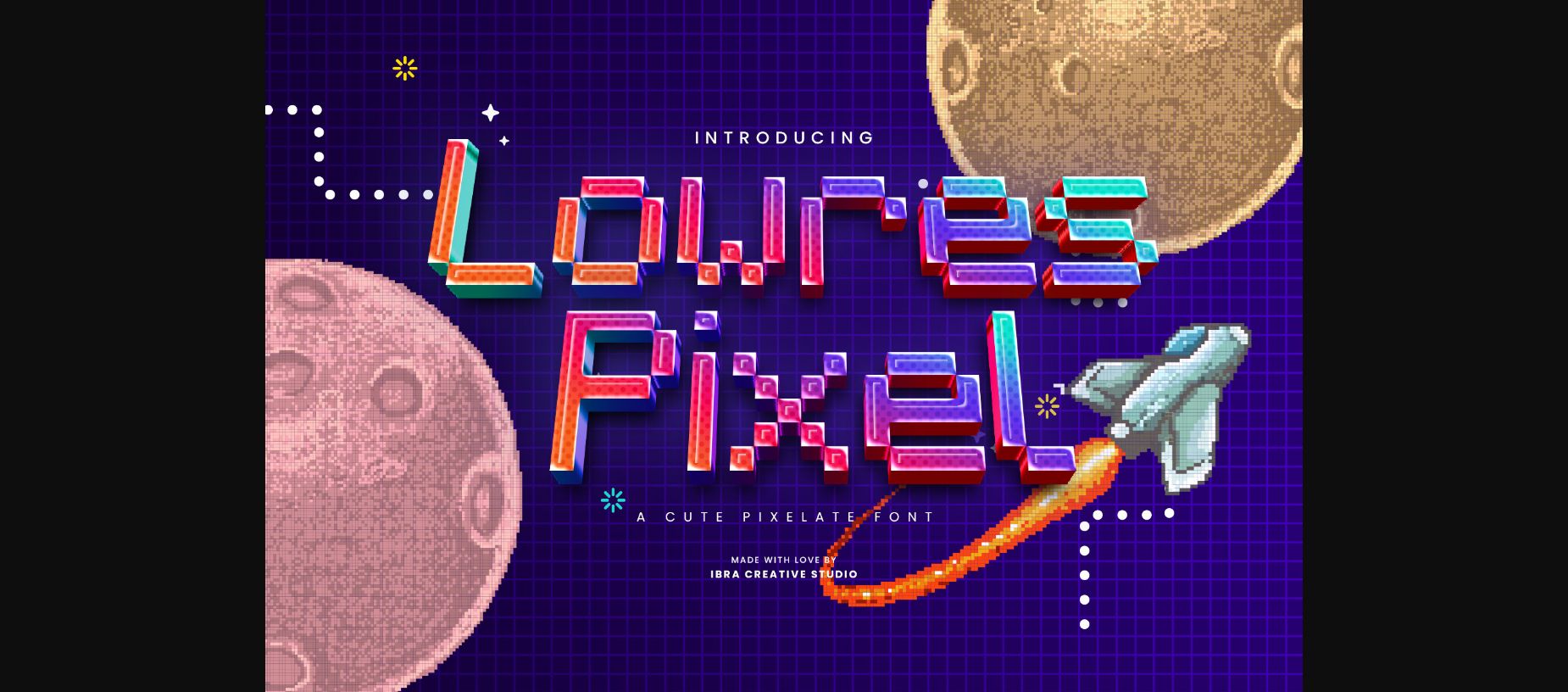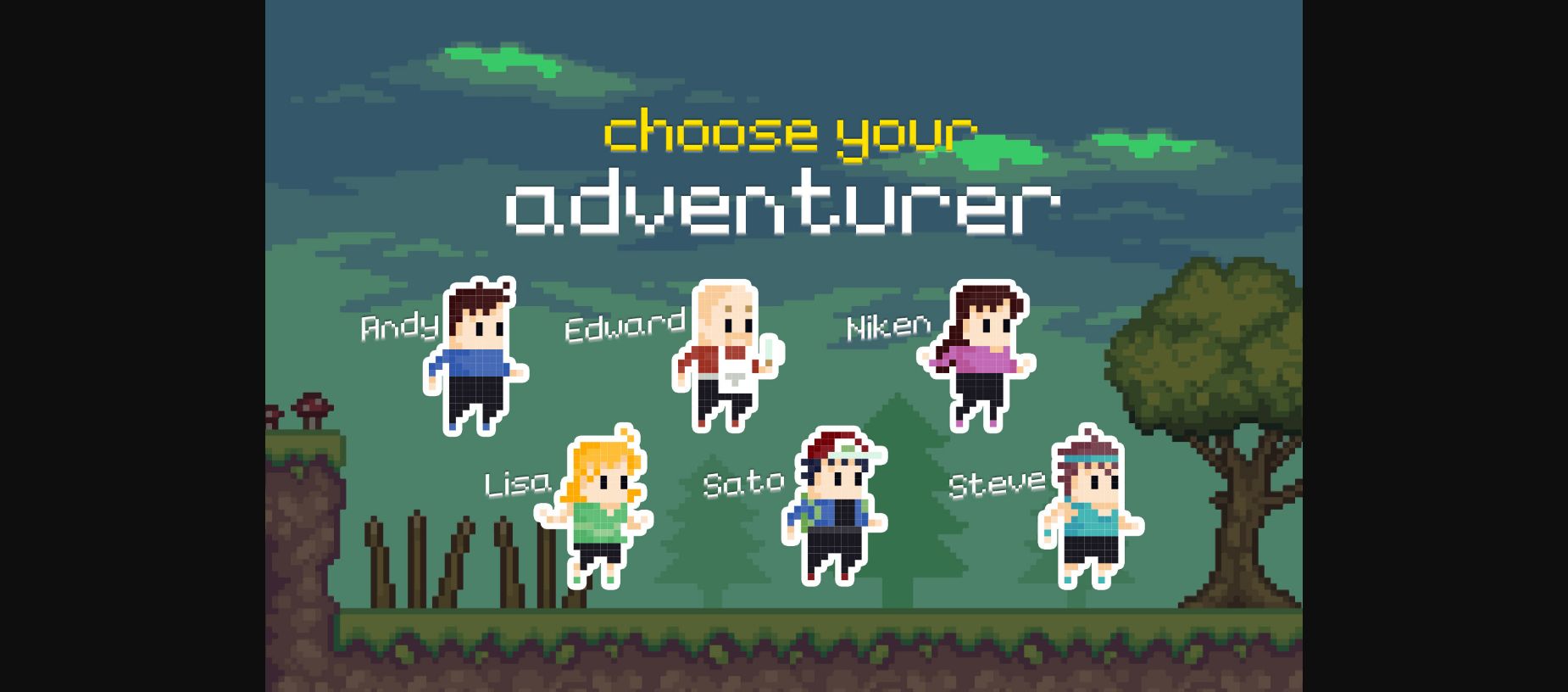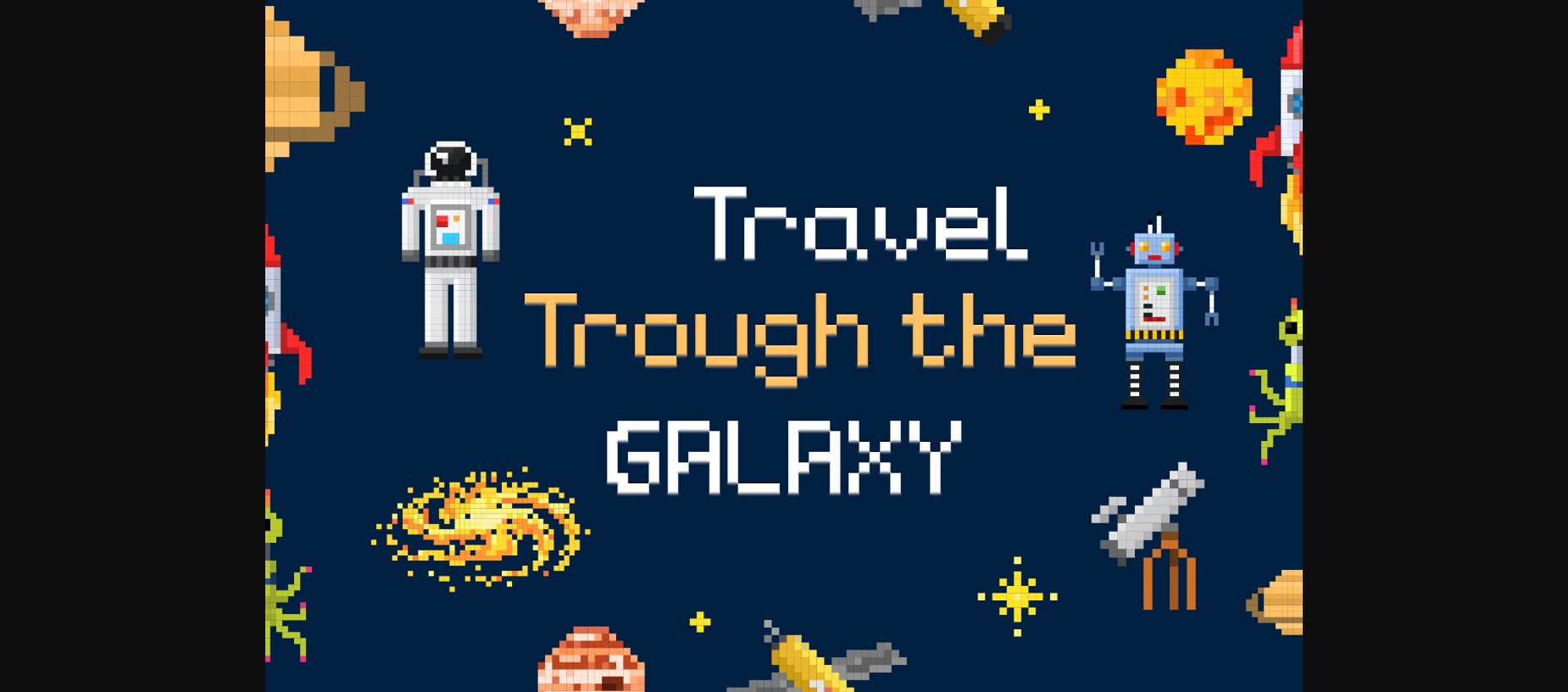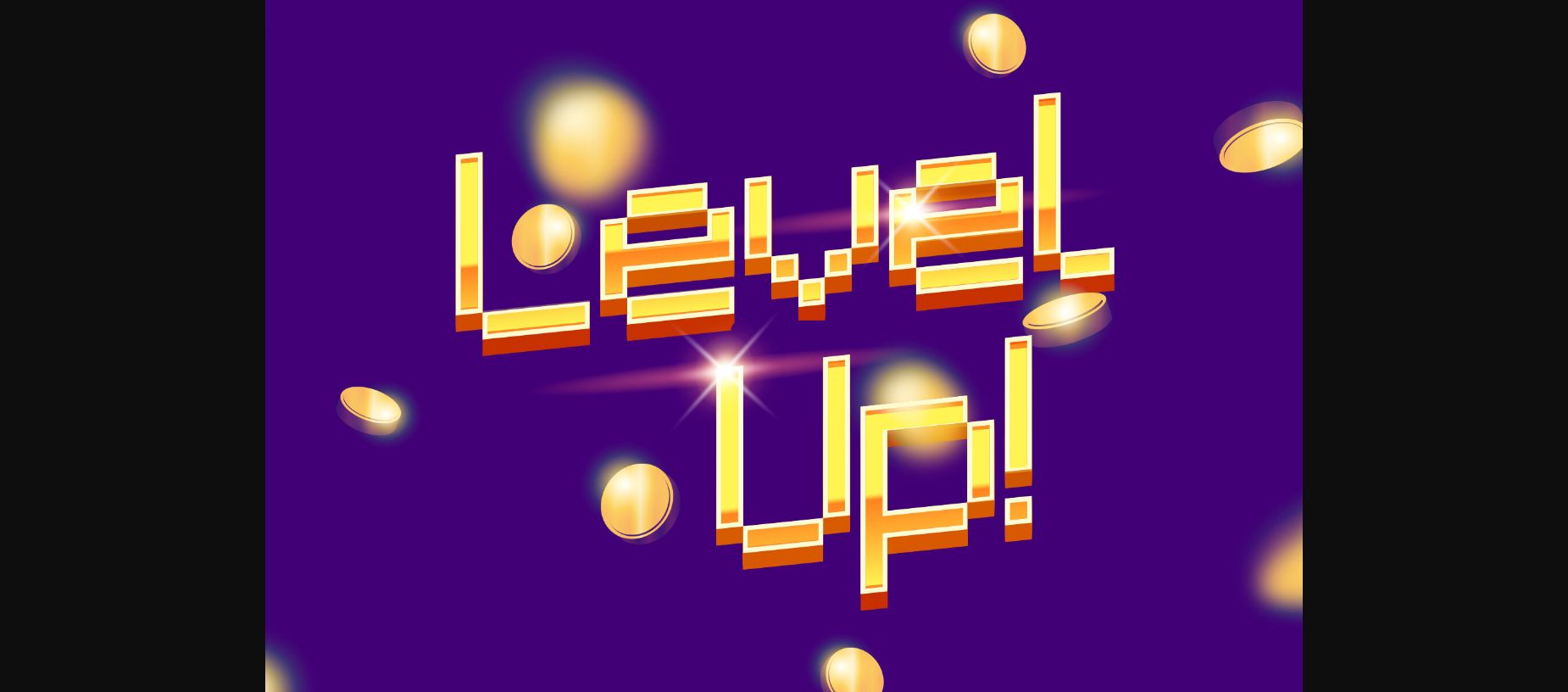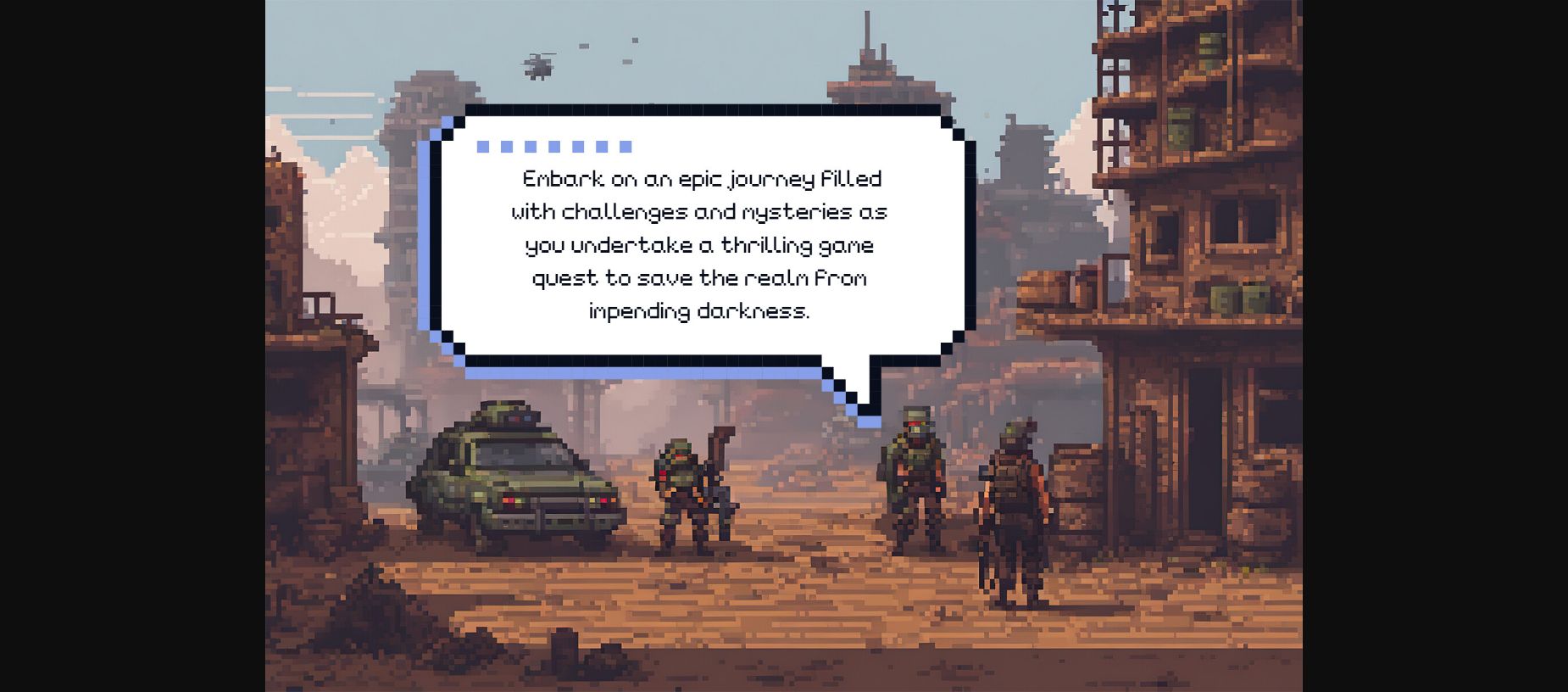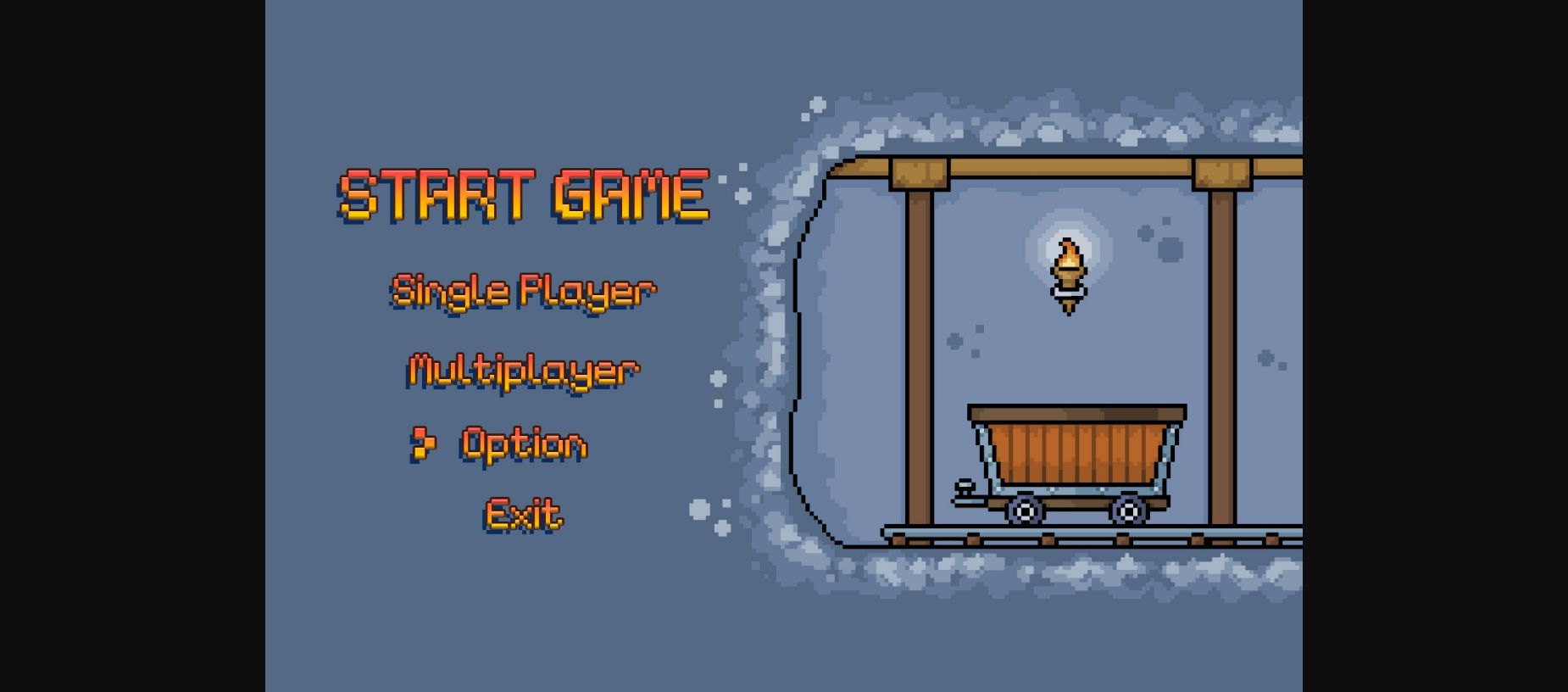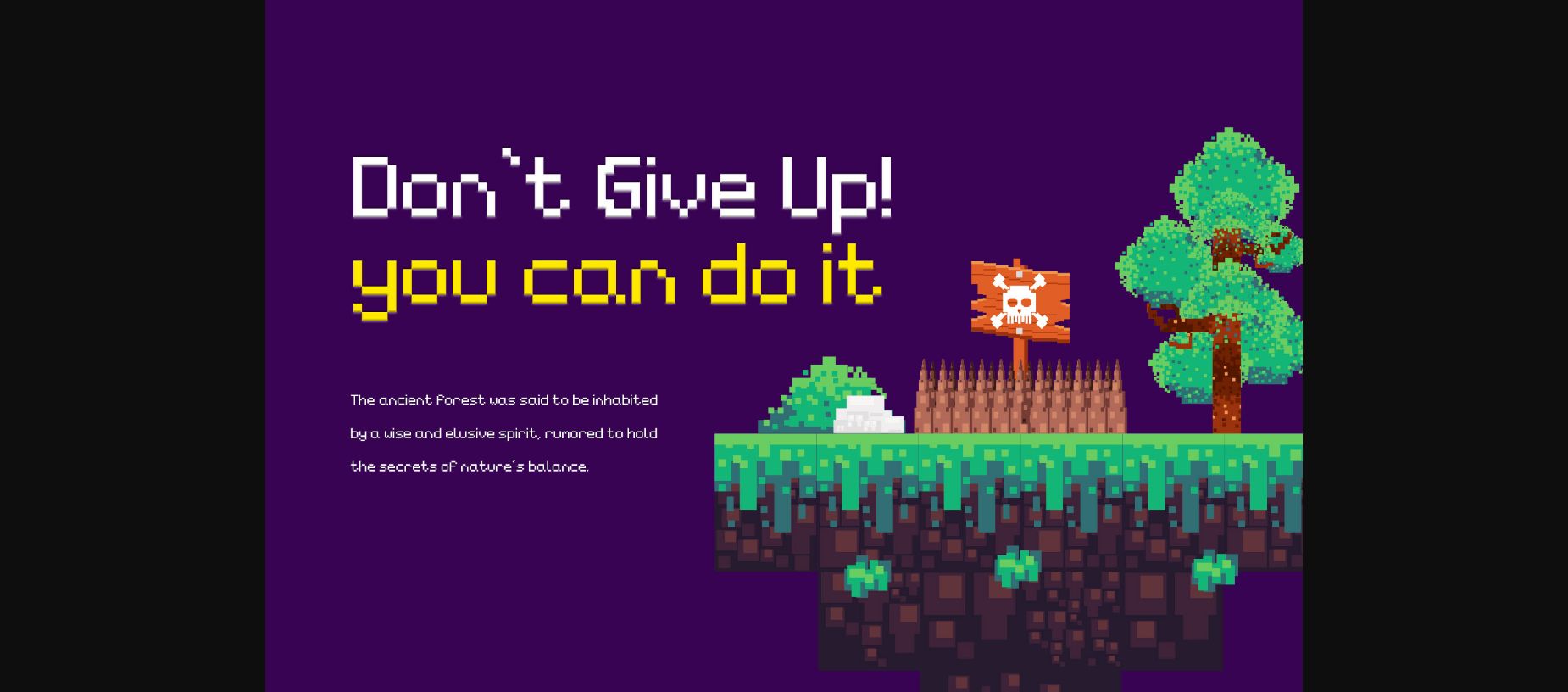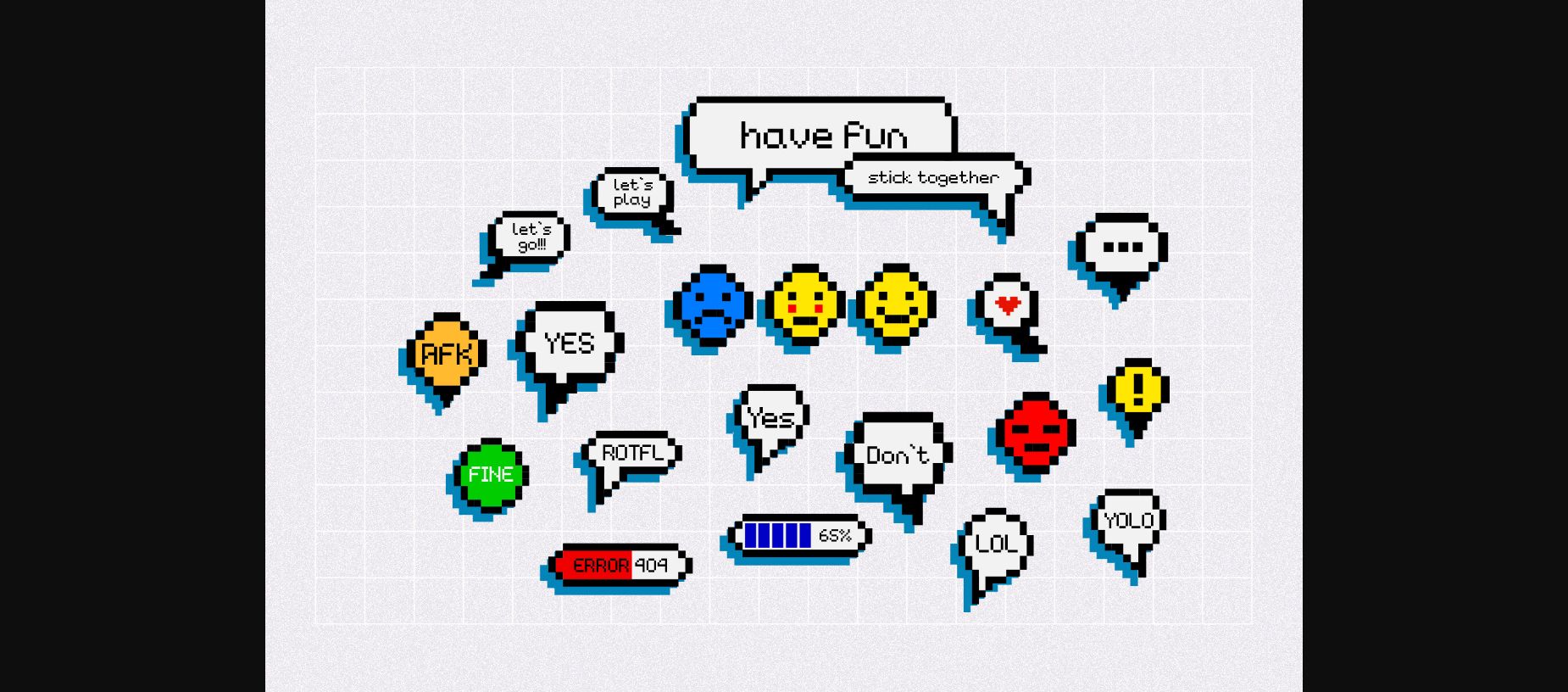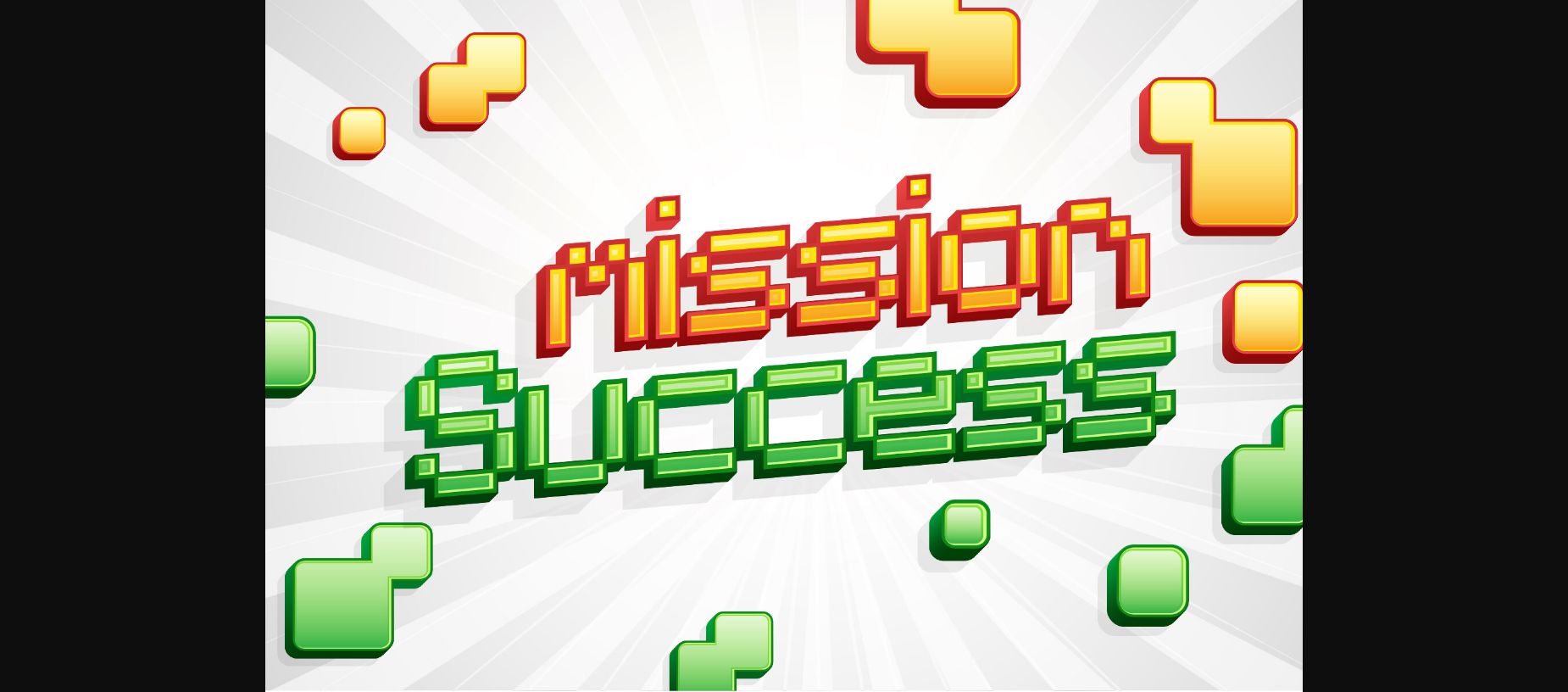
Lowres Pixel Font
About Lowres Pixel Font
Lowres Pixel is an adorable and charming pixelate font that evokes a sense of playful nostalgia. Drawing inspiration from retro video games and pixel art, each letter in Lower Pixel is intricately crafted with pixelated precision. With its blocky and endearing appearance, this typeface brings a sense of whimsy and innocence to any design.
Whether used for digital artwork, game interfaces, or quirky branding, Lower Pixel injects a delightful pixelated vibe that instantly captures attention and exudes a sense of cuteness. Its unique aesthetic transports us to the pixelated landscapes of classic games, making it a perfect choice for projects that seek to infuse a touch of vintage charm and childlike wonder.